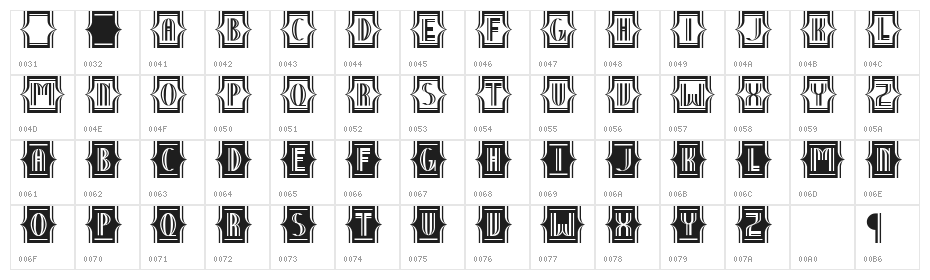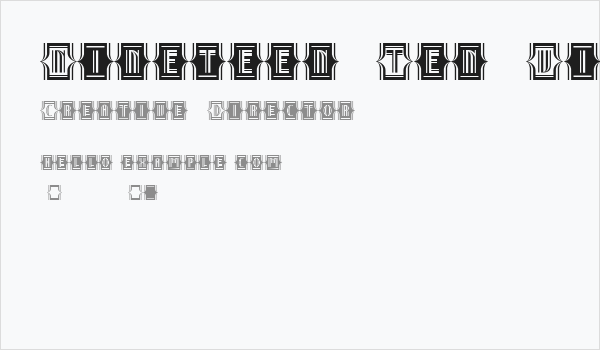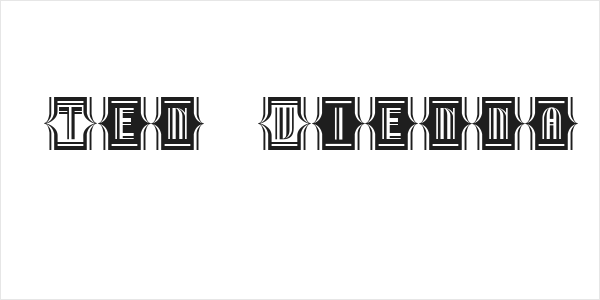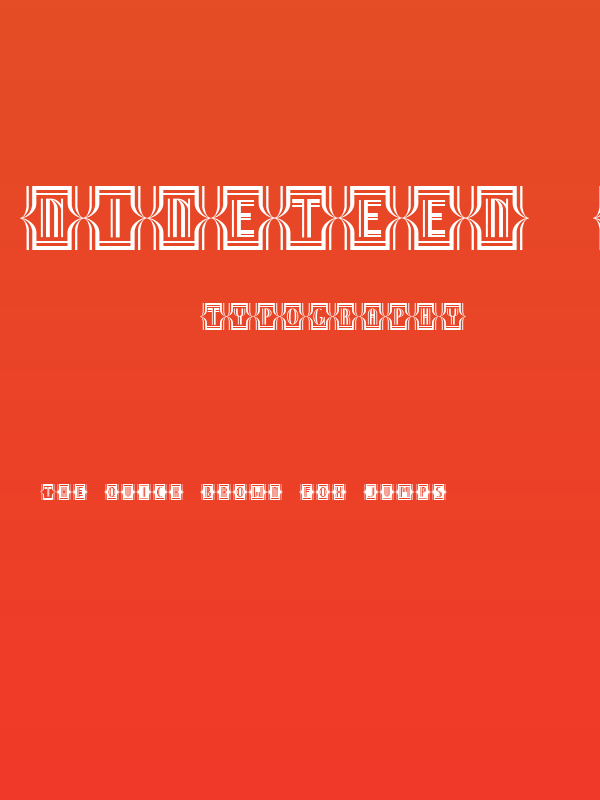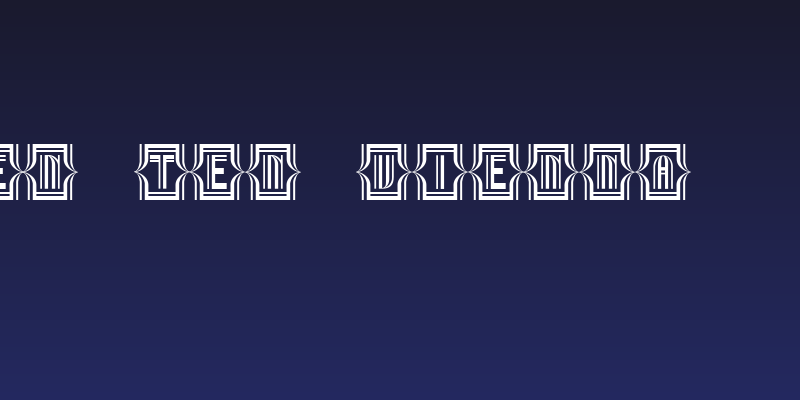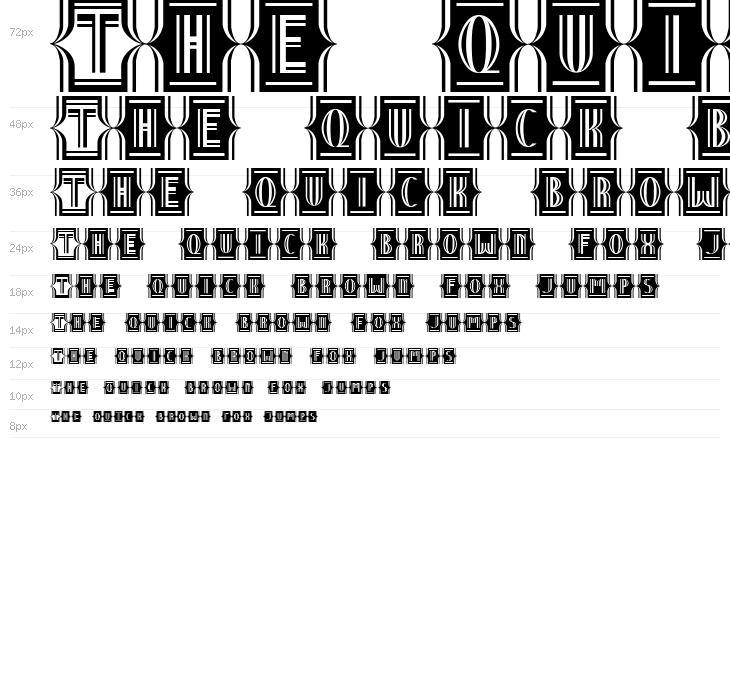
Nineteen Ten Vienna - Extras Font
Nineteen Ten Vienna - Extras Description
This font features a highly decorative and geometric style, characterized by its bold, block-like letters enclosed within intricate, ornate frames. Each character is meticulously designed with symmetrical patterns and sharp angles, creating a striking visual impact. The font's unique structure is reminiscent of early 20th-century art and design movements, offering a vintage yet timeless appeal. Its bold presence makes it ideal for attention-grabbing headlines or artistic projects where a strong visual statement is desired.
| Proposed Projects | Ideal for vintage-themed posters, artistic book covers, branding for luxury products, or any project requiring a bold, decorative typeface. |